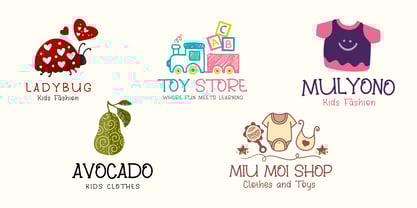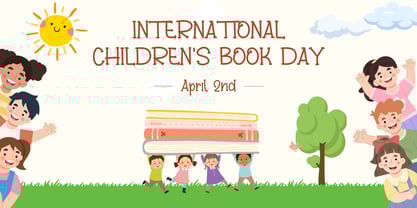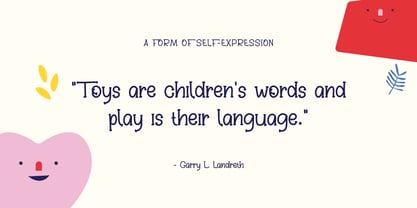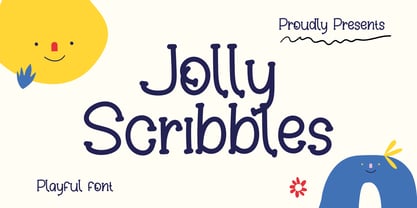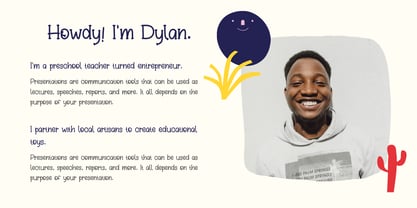
Jolly Scribbles
by Beary
The Jolly Scribbles Font Family was designed by Dian Haniffan Hadi and published by Beary. Jolly Scribbles contains 1 styles. More about this family
Jolly Scribbles is ideal for logos, branding projects, homeware designs, product packaging, mugs, quotes, posters, shopping bags, t-shirts, book covers, name cards, invitation cards, greeting cards, labels, photography, watermarks, special events, and so much more. It’s the perfect choice for adding a handwritten, elegant touch to any design.